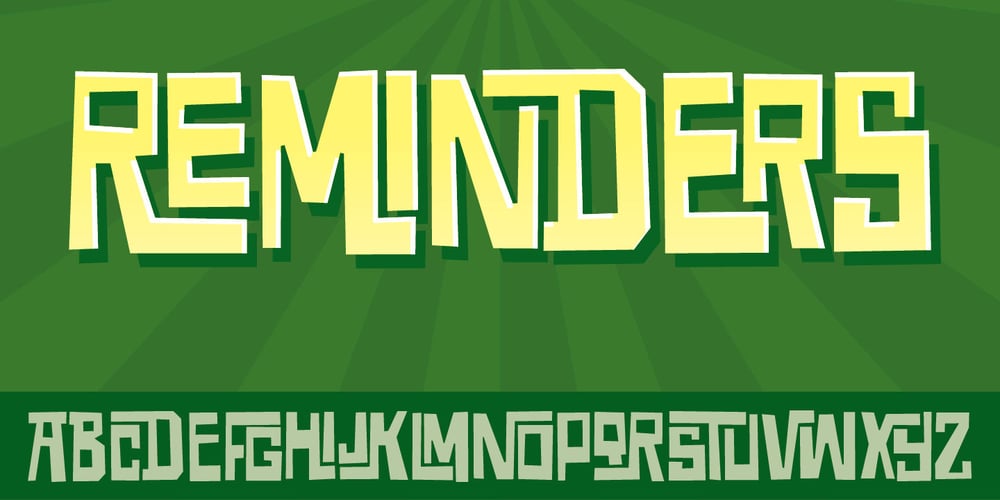
Reminders
Reminders font
Reminders Font Family was designed by Jakob Fischer and published by PizzaDude.dk. Reminders contains 1 styles and family package options. Step into the future with my Reminders font! The letters swirl and turn around and into each other with its almost 700 ligatures – that’s crazy!!!